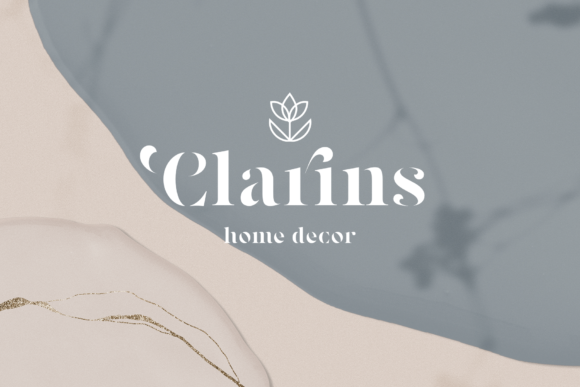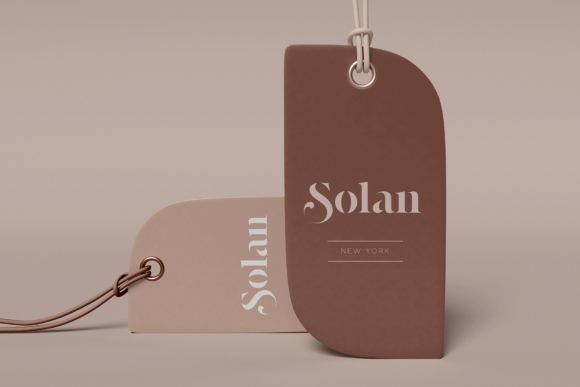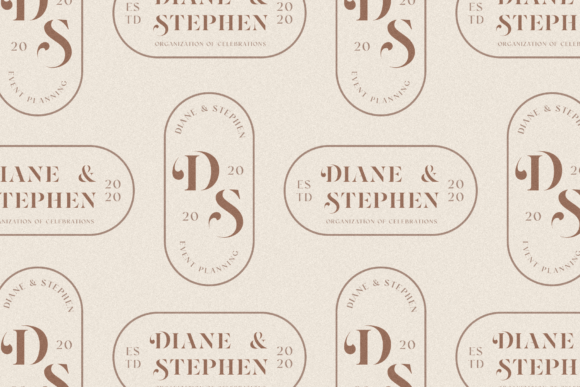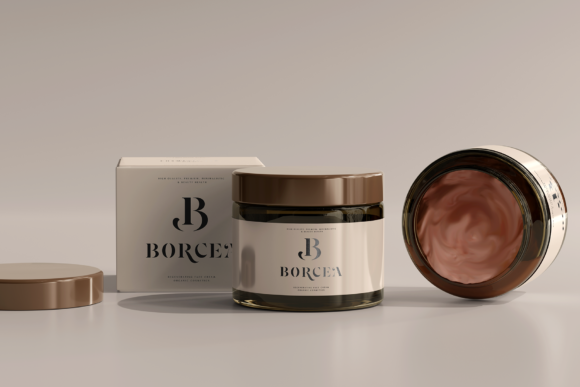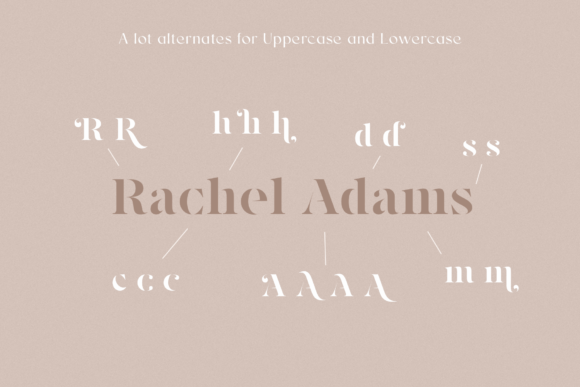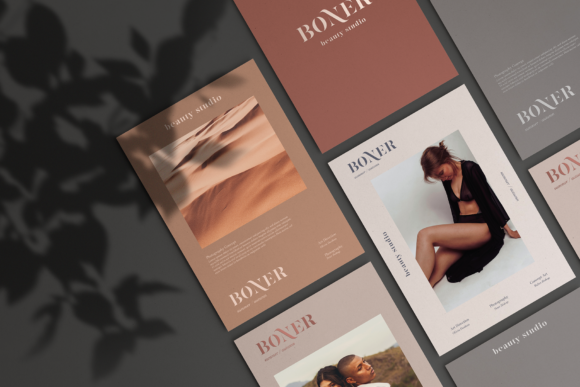
Introduction to Lerum Font Font
Fonts play a crucial role in design, and the Lerum Font font is a typeface that brings both character and versatility to any project. Whether you’re working on a branding project, a website, or a print design, the Lerum Font font offers a unique style that can elevate your work.
Lerum is an elegant and bold serif font.
It is expressive and playful, and thanks to its harmoniously combined characters and alternates, this font will make your product seem attractive and expensive This font is PUA encoded which means you can access all of the glyphs and swashes with ease.
Key Features of Lerum Font Font
Why Choose Lerum Font Font?
The Lerum Font font is more than just a typeface – it’s a design tool that helps you communicate your message with style and clarity. Its unique character set and versatile design make it suitable for a wide range of applications, from elegant invitations to bold headlines.
With its carefully crafted letterforms and balanced proportions, the Lerum Font font ensures readability and visual appeal across all mediums.
What makes Lerum Font font special?
The Lerum Font font stands out with its unique design, exceptional readability, and versatility across various design applications.